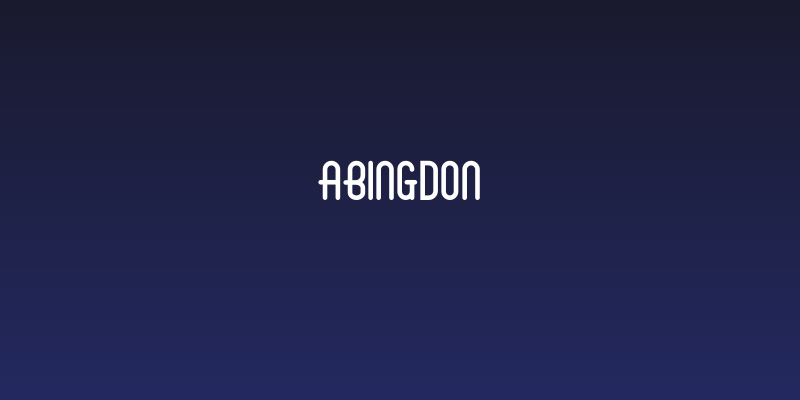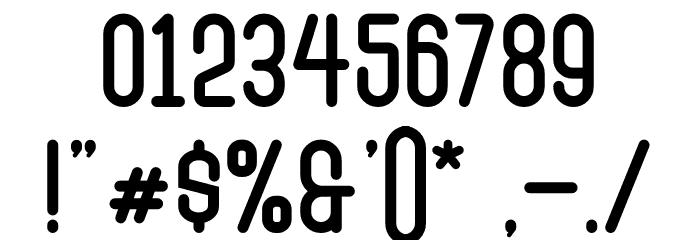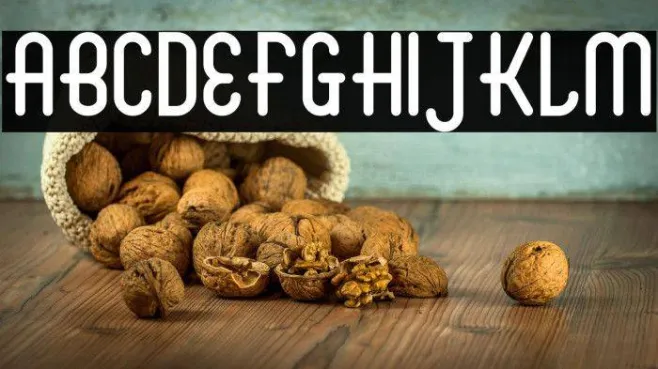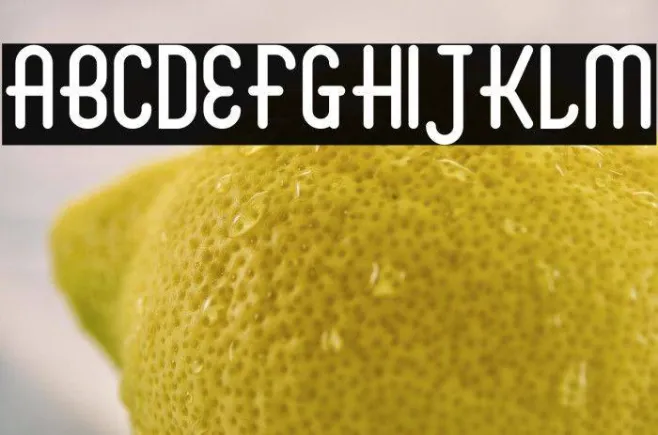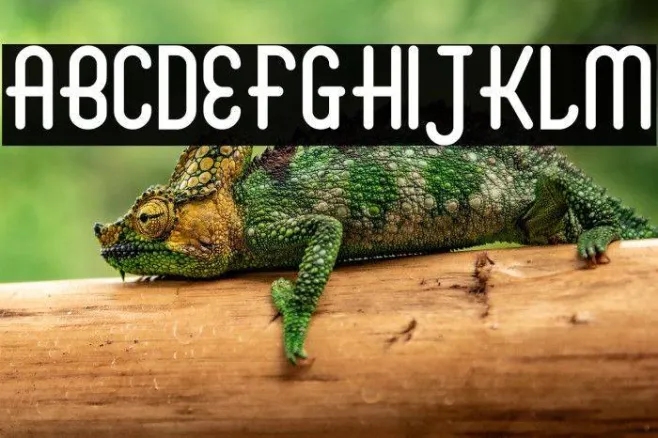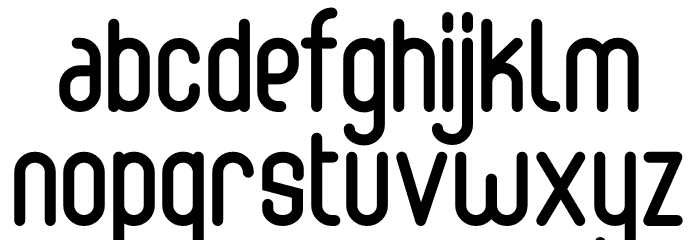
Abingdon Font
Abingdon Description
This font features a modern and sleek design with rounded edges and a uniform stroke width, giving it a friendly and approachable appearance. The characters are evenly spaced, contributing to its readability. The uppercase letters maintain a consistent height, while the lowercase letters have a slightly playful touch with their rounded terminals. The numerals are clear and distinct, making them suitable for various applications. The special characters are well-integrated, maintaining the overall aesthetic of the font. This font is versatile, suitable for both digital and print media, and can be used in a variety of design projects.